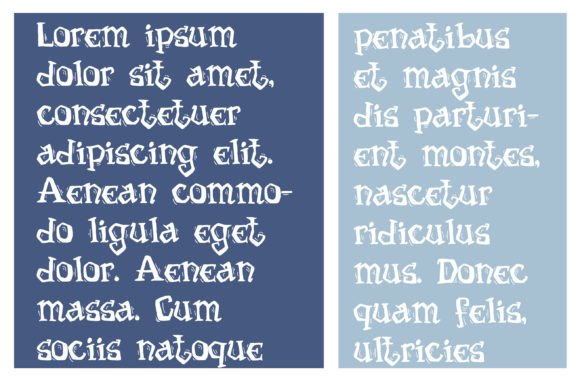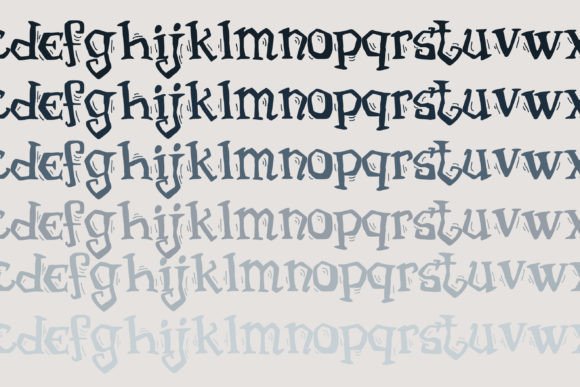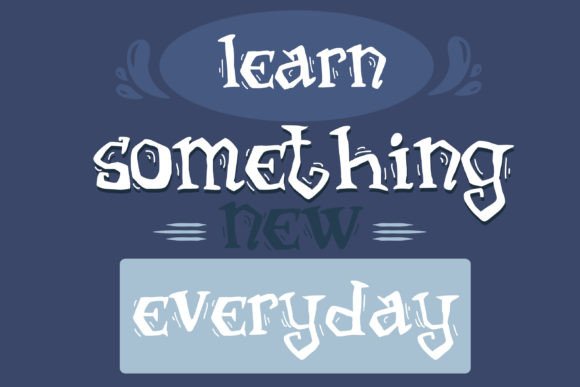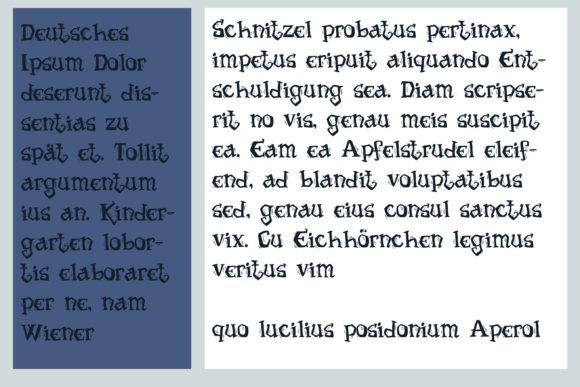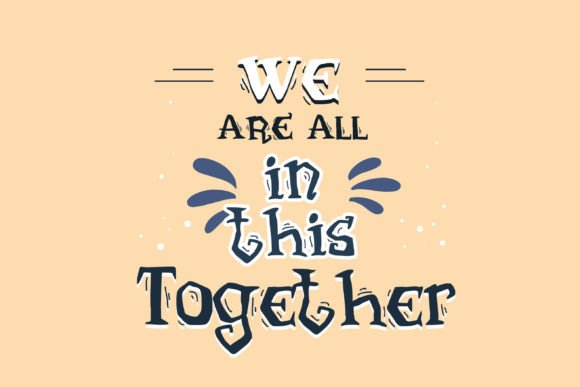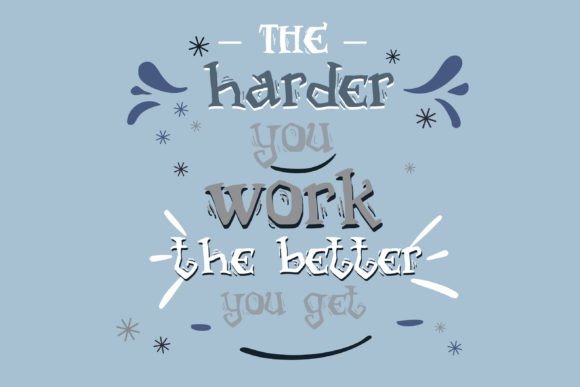
Introduction to Pirate Shivers Font
This hand-crafted whimsical font has a pirate feel and “shivers” throughout.
Pirate Shivers is a fun, handmade font that looks like it’s from a pirate story It has a playful pirate style and wavy, “shivery” lines that make it look unique and lively.
Key Features of Pirate Shivers Font